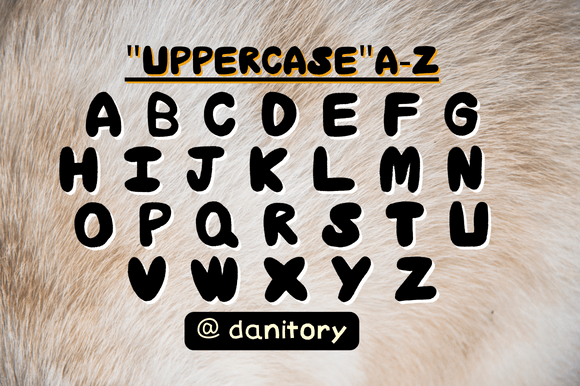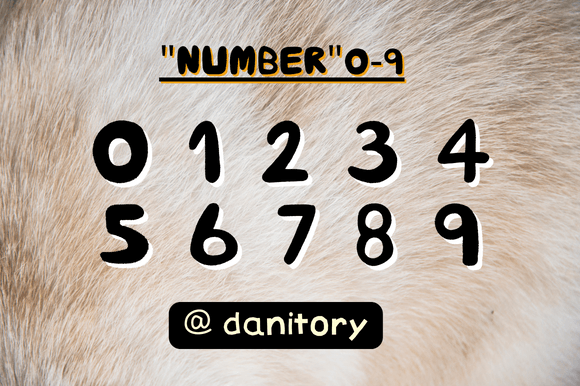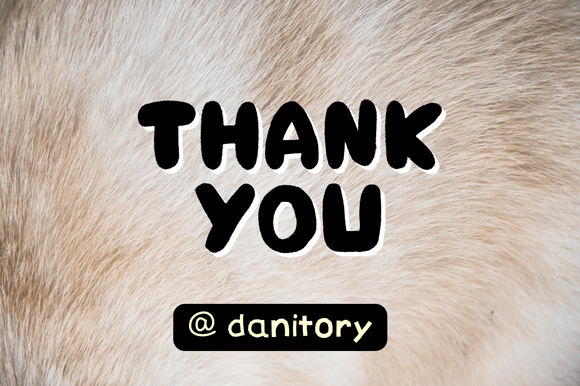
Unleashing Your Creativity with Furfy Font
Have you ever been stuck on a design project, struggling to convey the perfect message through typography? I’m sure you have. We’ve all been there – staring at a blank page, trying to think of the perfect font to match our creative vision. And then, like a breath of fresh air, you stumble upon a font that just clicks. For many designers, that font is Furfy Font – a quirky and fun handwritten font that adds a touch of personality to any project.
Furfy Font is more than just a pretty face; it’s a versatile tool that can be used for a wide range of creative pursuits, from crafting and digital design to presentations and greeting cards. Its unique, hand-drawn feel makes it perfect for adding a personal touch to any project, and its value lies in its ability to help designers connect with their audience on a deeper level.
Furfy Font Key Features
- Font Style: Furfy is a sans-serif, child-friendly font designed for digital use.
- Unique Characteristics: Furfy features rounded edges, smooth curves, and a child-friendly design, making it an ideal choice for educational materials, children’s books, and websites.
Furfy Font Review
Furfy Font is a charming and whimsical typeface that is sure to add a touch of playfulness to any design project. ✨ The font’s unique blend of futuristic and hand-drawn elements makes it perfect for creating eye-catching headings and titles.
One of the standout features of Furfy Font is its versatility. ✨ It works well in a variety of contexts, from digital products to print materials, and can be easily customized to fit any brand’s aesthetic.
- Unique blend of futuristic and hand-drawn elements
- Perfect for creating eye-catching headings and titles
- Versatile and works well in a variety of contexts
- May not be suitable for body text due to its large x-height and unique letterforms
- Can be difficult to read in smaller font sizes
- May require additional styling to achieve a cohesive look
Overall, I think Furfy Font is a great addition to any designer’s toolkit. While it may have some limitations, its unique charm and versatility make it a great choice for designers looking to add some personality to their projects.
Furfy Font is perfect for:
- Children’s books and educational materials
- Cartoon-style graphics and animations
- Whimsical branding and marketing materials
Remember to use Furfy Font in moderation and in combination with other fonts to avoid overwhelming your design.